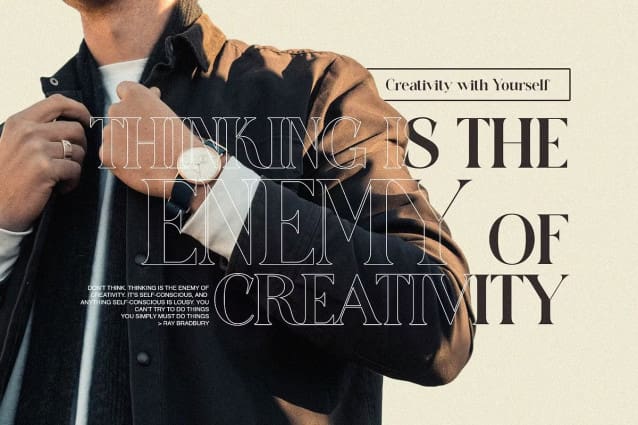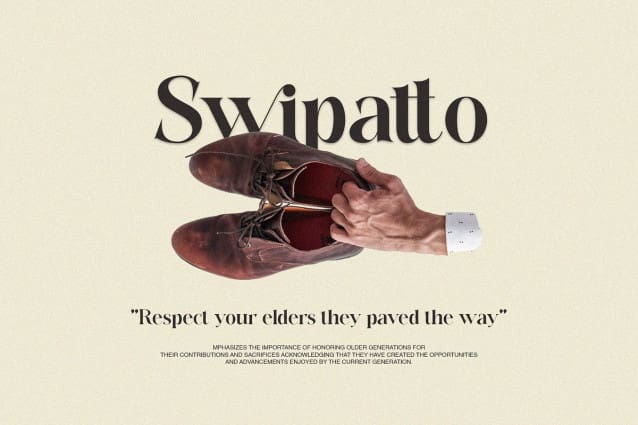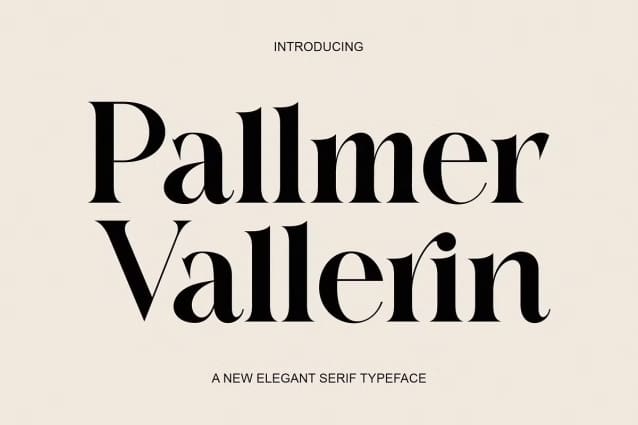
Pallmer Vallerin Font
Pallmer Vallerin Modern and beautiful Serif Typeface inspired by the famous minimalist logo perfect for the purposes of designing templates, brochures, videos, advertising branding, logos, invitation, layout design, elegant crafting, beauty design and other